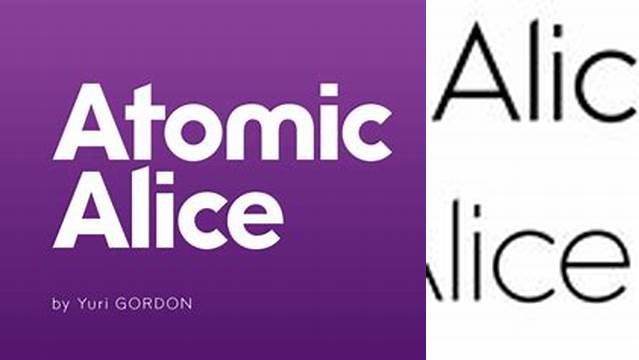
Hey everyone! If you're on the hunt for a stylish, modern font to spice up your designs, you've probably stumbled upon the Atomic Alice Light Font. And guess what? You can snag it for free! This article will guide you through everything you need to know about this awesome typeface, including how to get your hands on that coveted Atomic Alice Light Font free download, explore its features, and get some killer ideas on how to use it. Buckle up, because we're diving into the world of typography!
H2: Exploring the Features of the Atomic Alice Light Font
Now that you’ve hopefully got your Atomic Alice Light Font free download secured and installed, let’s get to know it a bit better. What makes this font so special? Well, Atomic Alice Light has a clean, modern aesthetic with a touch of playfulness. It often features a light weight, making it ideal for headlines, titles, and short bursts of text. The font's design is generally characterized by its simplicity and readability, ensuring your message is clear and concise. You'll likely notice its smooth curves, geometric shapes, and a balanced overall look. The key is that it's designed to be eye-catching without being overwhelming. It walks a fine line between being modern and timeless, perfect for a wide range of design projects. Many designers and creatives love it for its versatility, which is why the Atomic Alice Light Font free download is so popular. The kerning, or spacing between letters, is usually well-considered, contributing to its overall legibility. Some versions might also include a range of glyphs, which are alternative characters or special symbols, further expanding the possibilities of how you can use the font. Different variations of the Atomic Alice Light Font might be available, such as different weights (regular, bold, etc.) or styles. Make sure to explore these to see how they can work for you and the overall design of your project.
Atomic Alice Light is generally a sans-serif font, meaning it doesn't have those little strokes (serifs) at the ends of the letterforms. This contributes to its clean, modern look. That being said, even within the sans-serif category, fonts can vary widely in their style. Always take some time to experiment with it.
H3: Atomic Alice Light Font: Perfect for Various Design Projects
This font is so popular because it's a workhorse in the design world. The Atomic Alice Light Font can be a fantastic choice for a variety of design projects. Its clean lines and modern feel make it suitable for everything from website headers to social media graphics. Think about using it for your logo, as it is legible, memorable, and conveys a sense of modernity. The light weight is great for headings. You could also try it on blog posts or website content; however, use it sparingly, as too much light text can make longer bodies of text difficult to read. The font's versatility means you can use it on both digital and print projects. You can use it on business cards, brochures, and even packaging. The Atomic Alice Light Font can also work very well in creating eye-catching invitations for events like weddings or parties. It can also be great for creating posters, flyers, and other promotional materials. You will find that the Atomic Alice Light Font free download can provide excellent visual balance. The design's simplicity allows it to pair well with different colors, images, and design elements, making it easy to integrate into different design schemes. In digital projects, ensure the font size is large enough for easy readability across different devices. The font looks great on web design because it is legible and creates an inviting and professional design.
H2: Tips and Tricks for Using the Atomic Alice Light Font Effectively
Alright, so you've got your Atomic Alice Light Font free download, you understand the licensing, and now you're ready to put this beauty to work! Here are some tips and tricks to help you use it effectively: First, experiment with the font in different sizes and weights. Try it at various sizes to see how it looks for headlines, subheadings, and body text. If the font comes in multiple weights, see which one best suits the specific design. Consider pairing Atomic Alice Light with other fonts. It can play well with both serif and sans-serif fonts. Think about creating a contrast between a modern sans-serif like Atomic Alice Light with a classic serif font for body text. Next, think about the color and background. The light weight of Atomic Alice Light might work best on a darker background to create good contrast and ensure readability. When you are experimenting with the font, take some time to play around with the kerning (letter spacing) and leading (line spacing). If the text feels cramped or too spaced out, these adjustments can make a big difference. Also, remember to consider the overall tone and style of your project. The font’s modern aesthetic works best when aligned with a similar aesthetic. By considering these elements, you can create visually appealing and effective designs that make the most of the Atomic Alice Light Font. Remember, a good font choice should enhance the message, not distract from it.
H2: Alternative Fonts to Atomic Alice Light for Your Designs
While the Atomic Alice Light Font free download is a fantastic choice, it's always a good idea to have some alternatives up your sleeve. Sometimes, a different font might be a better fit for a particular project or design aesthetic. Explore fonts with a similar style. If you love the clean, modern look of Atomic Alice Light, look for other sans-serif fonts with a similar aesthetic. Try fonts such as Montserrat, Lato, or Open Sans. These are well-designed, readable fonts that can offer a similar aesthetic. Explore a contrasting font style. If you want a different look, consider pairing the font with a serif font. Experiment with fonts that offer different weights and styles. These variations can help you create more dynamic and engaging designs. Also, check out the fonts with unique features. These fonts can bring a different personality to your project and distinguish it from others. Remember, the best font for your project depends on its goals. Explore many font options and see what best suits your needs. Having a variety of fonts at your disposal gives you the flexibility to create diverse and visually appealing designs! Do not be afraid to experiment, and have fun finding your perfect font combination!
H3: Fonts Similar to Atomic Alice Light: Exploring Alternatives
So, you're loving the Atomic Alice Light Font free download, but sometimes you need alternatives. Let's dive into some fonts that share a similar vibe. Consider Montserrat, a geometric sans-serif font that is a great alternative. It has a similar clean, modern feel, perfect for headlines and body text. Lato is another fantastic choice. It is easy to read, and it works well in many design contexts. Open Sans is a highly versatile font that is suitable for digital and print projects. It's also a good alternative because of its readability. Remember, the key is to find fonts that are as readable as Atomic Alice Light. You can also explore other geometric sans-serif fonts. These fonts often share the same clean, minimalist aesthetic, which makes them a great option. A popular choice is Poppins, a well-designed font that is often used for headings and web design. When looking for alternatives, be sure to consider the same key features you like.